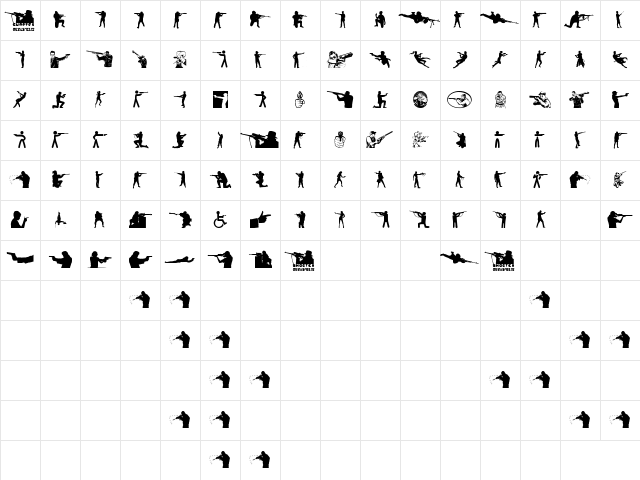
Shooter Regular Free Font
Shooter Regular
Design Context for Shooter
Shooter is a composed and adaptable typeface that performs quietly and consistently across a wide range of design contexts.